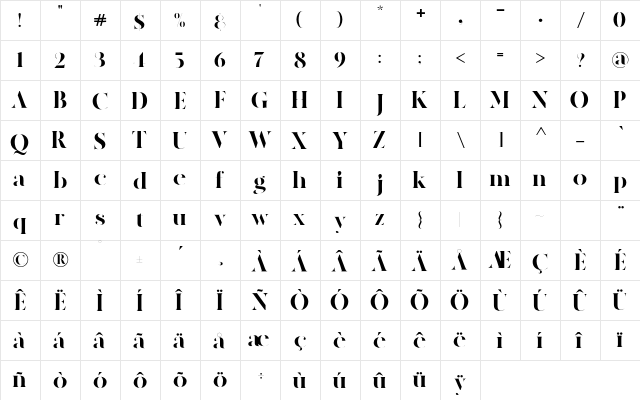
amigh Regular
Regular · 177Studio 177Studio ·
Foundry 177Studio
Designer177Studio
Design Context for amigh Typeface
amigh takes a measured approach to typography — its balanced proportions and neutral character make it a reliable workhorse for both digital and print work.